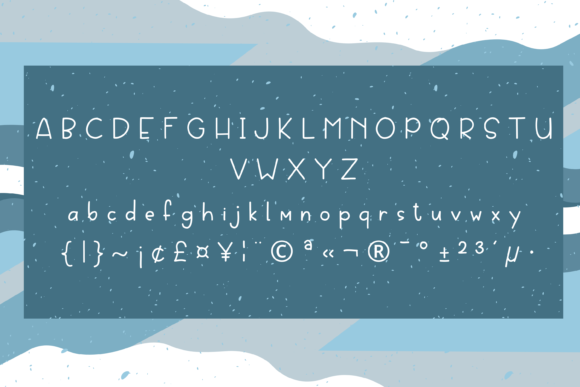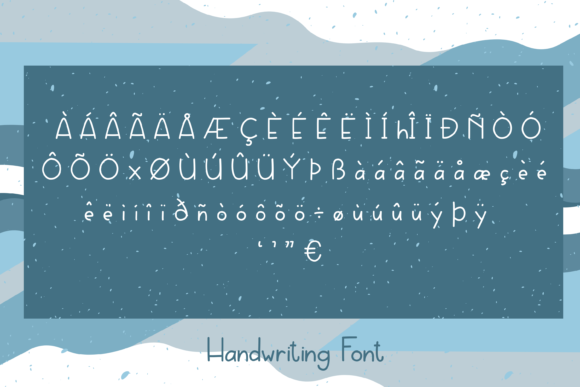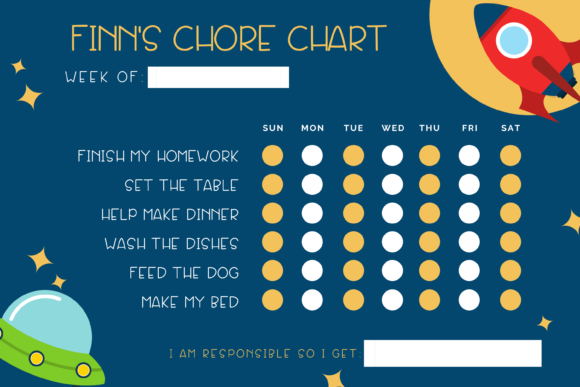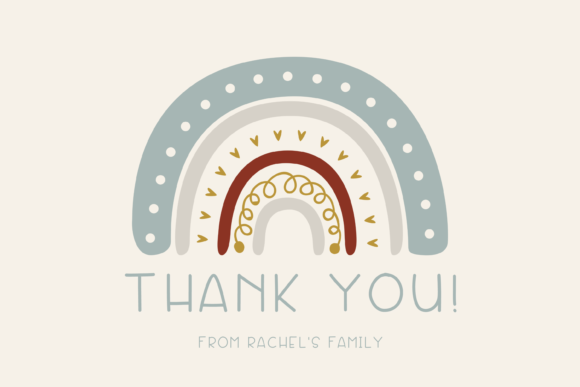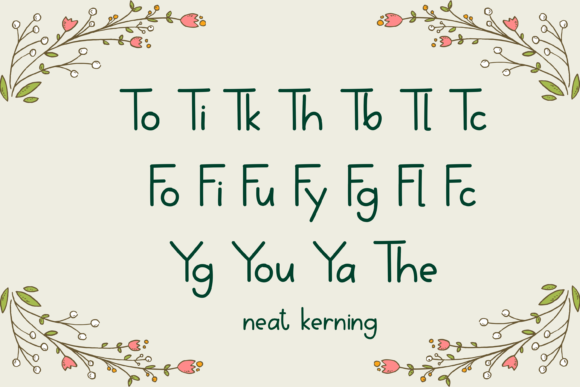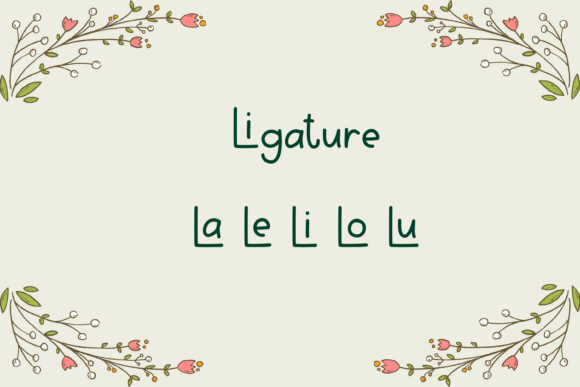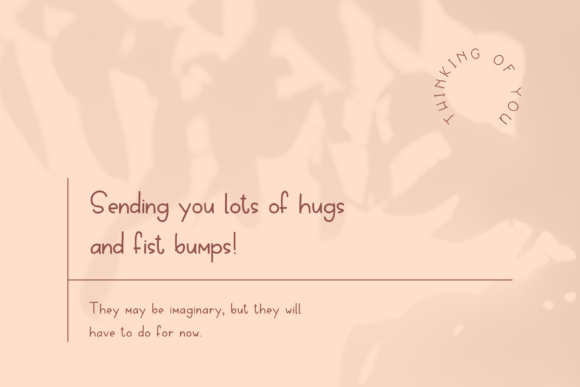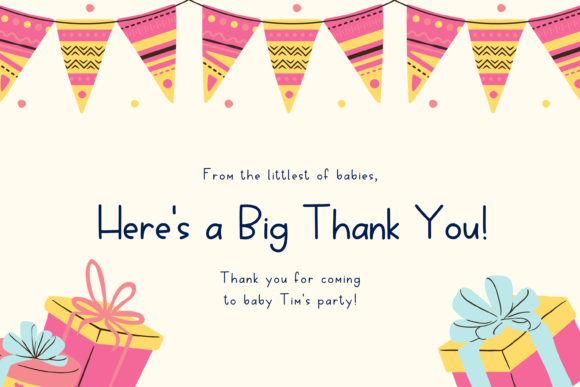
Frosty White Font
About Frosty White Font
Frosty White is a chic and clean script font that exudes elegance and class. This font was particularly crafted for those who need a beautiful and refreshing look to their designs.